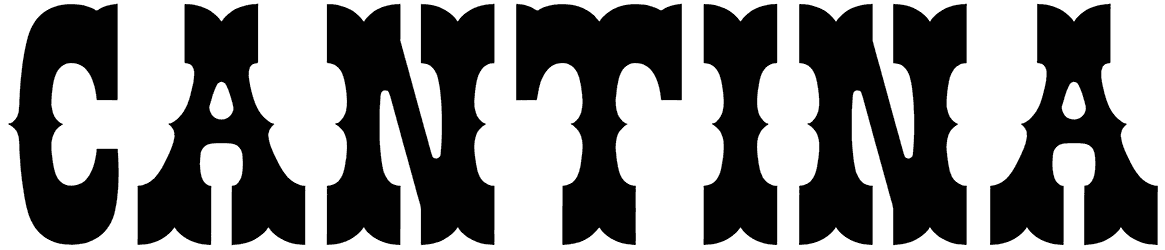
Cantina Font
Designed byDon Marciano
Having a captivating title plays an important part in hooking a lot of observers, and this carnival font can easily do it. Your festival flyer would become memorable with the unique style of this wanted font. Cantina font doesn’t support lowercase letters, but as a cool item, we offer you to add it to your creative design and enjoy the final draft.